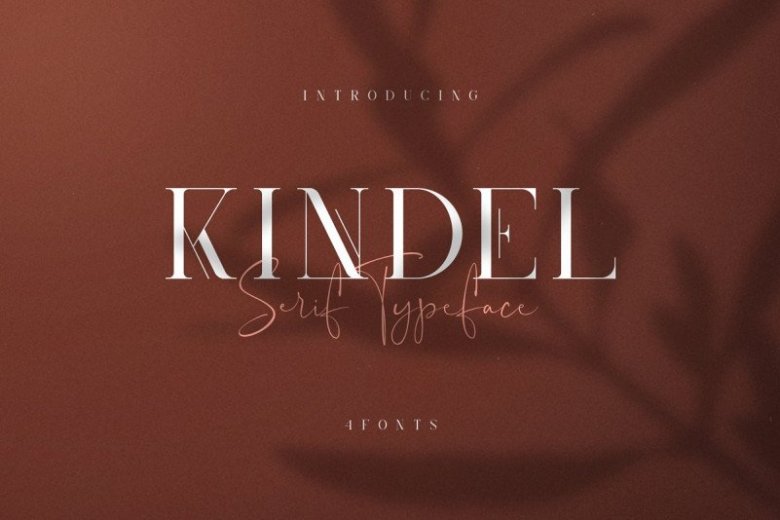
Kindel Serif Font
Introducing Kindel Font. This is a display typeface with sharp serifs. It’s a very versatile font that works great in large and small sizes. It is was designed by VPcreativeshop. It’s modern, sophisticated typeface with total of 4 font styles, loaded with ligature glyphs and multilingual support. It’s a very versatile font that works great in large and small sizes.
It’s perfect for branding projects, home-ware designs, product packaging, magazine headers – or simply as a stylish text overlay to any background image.